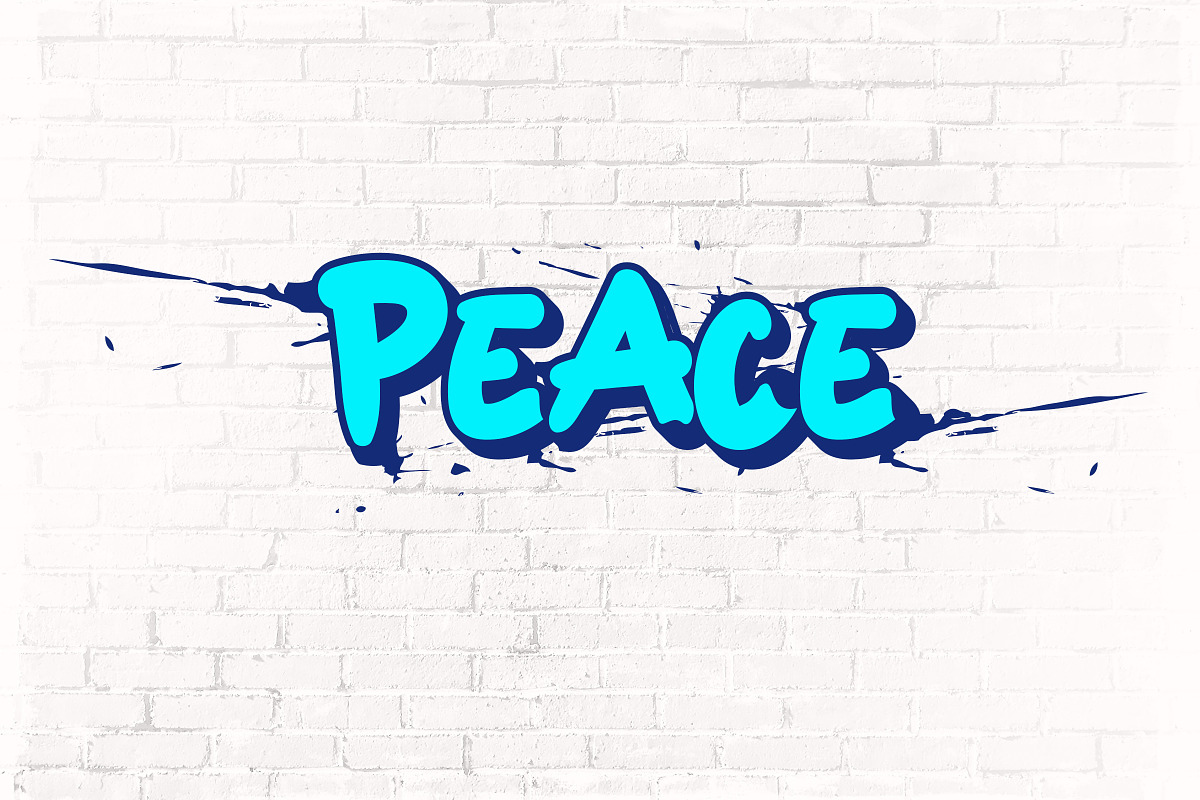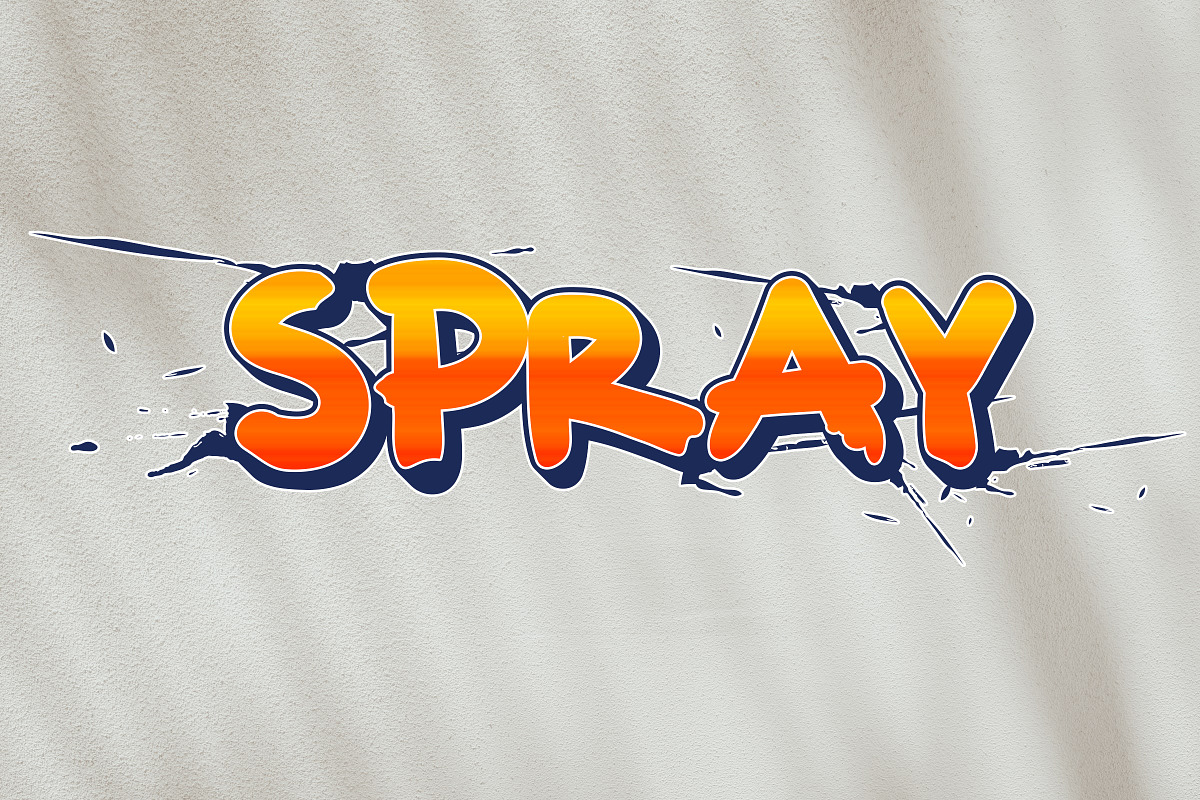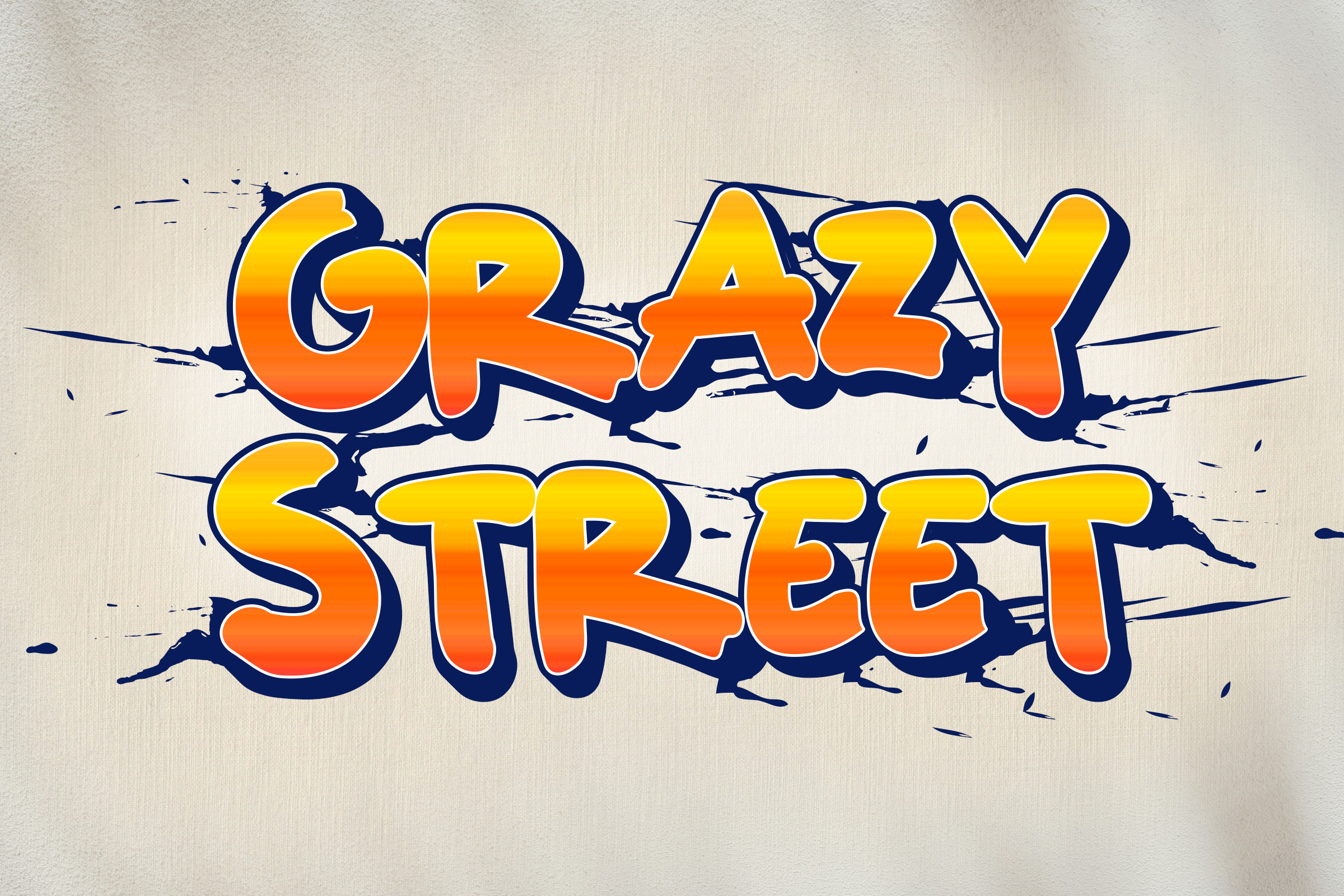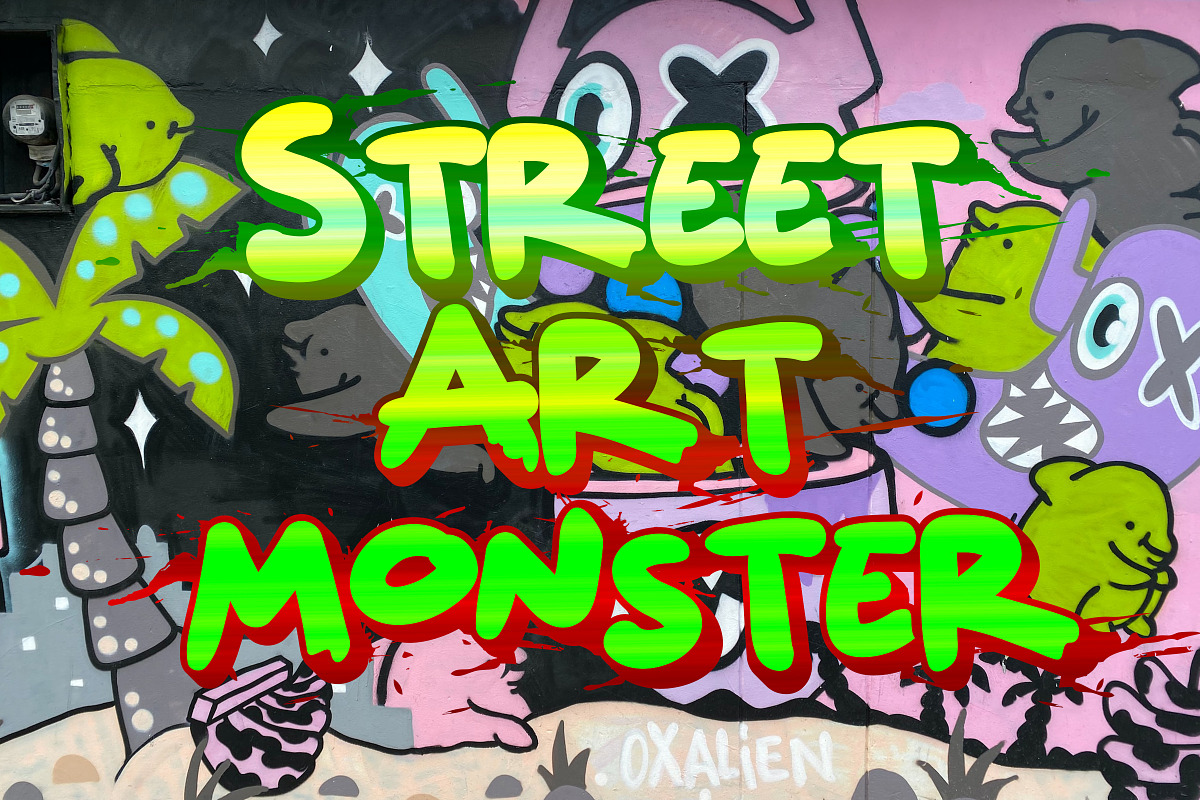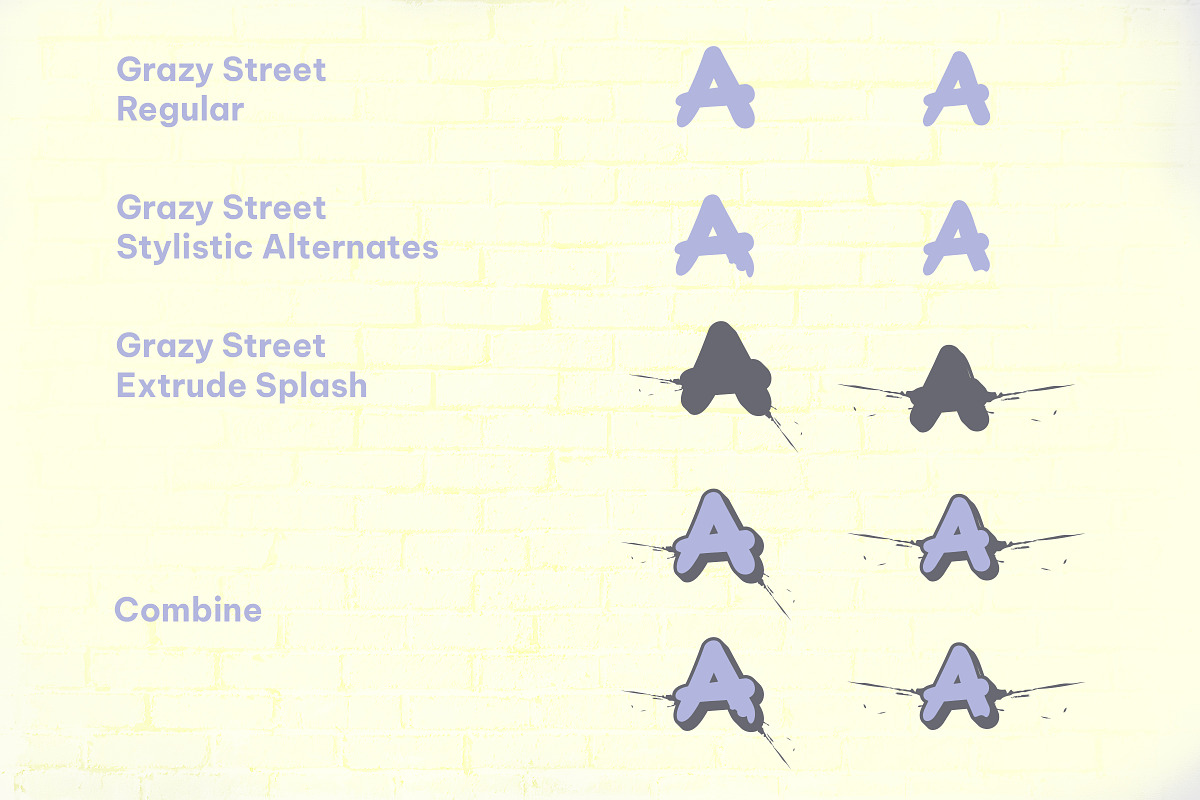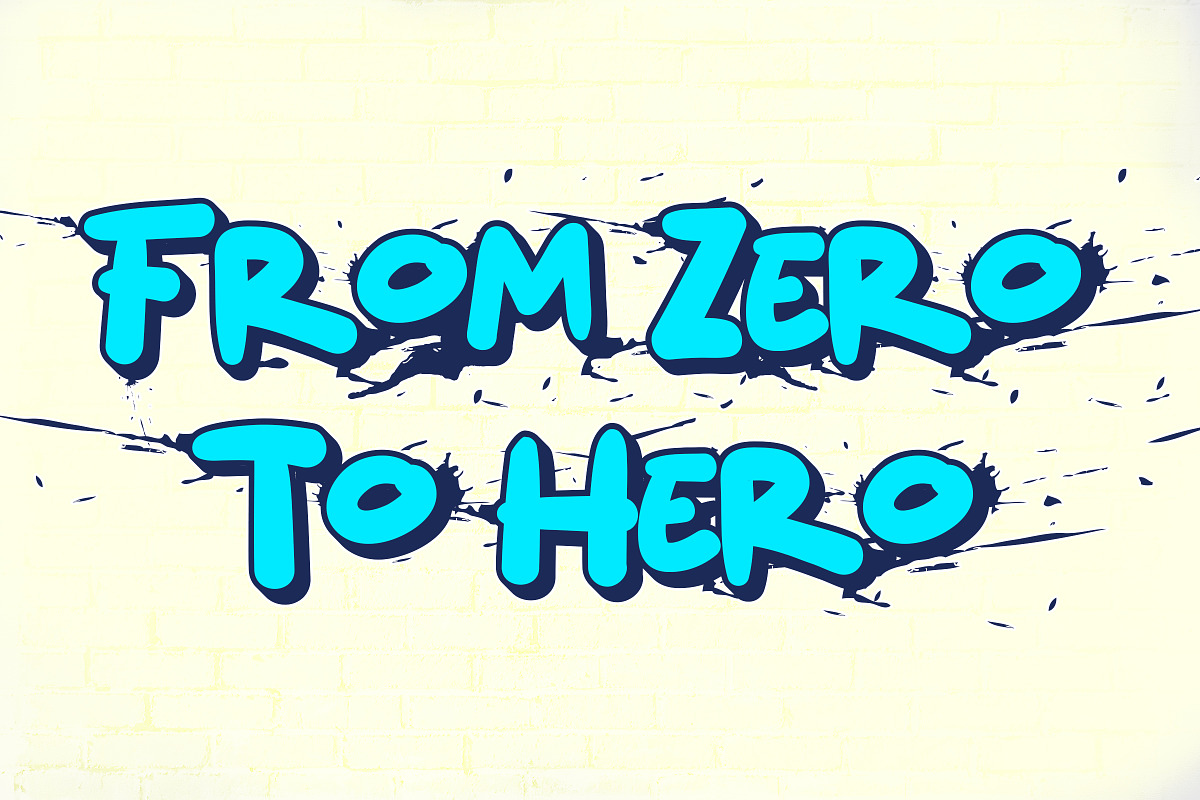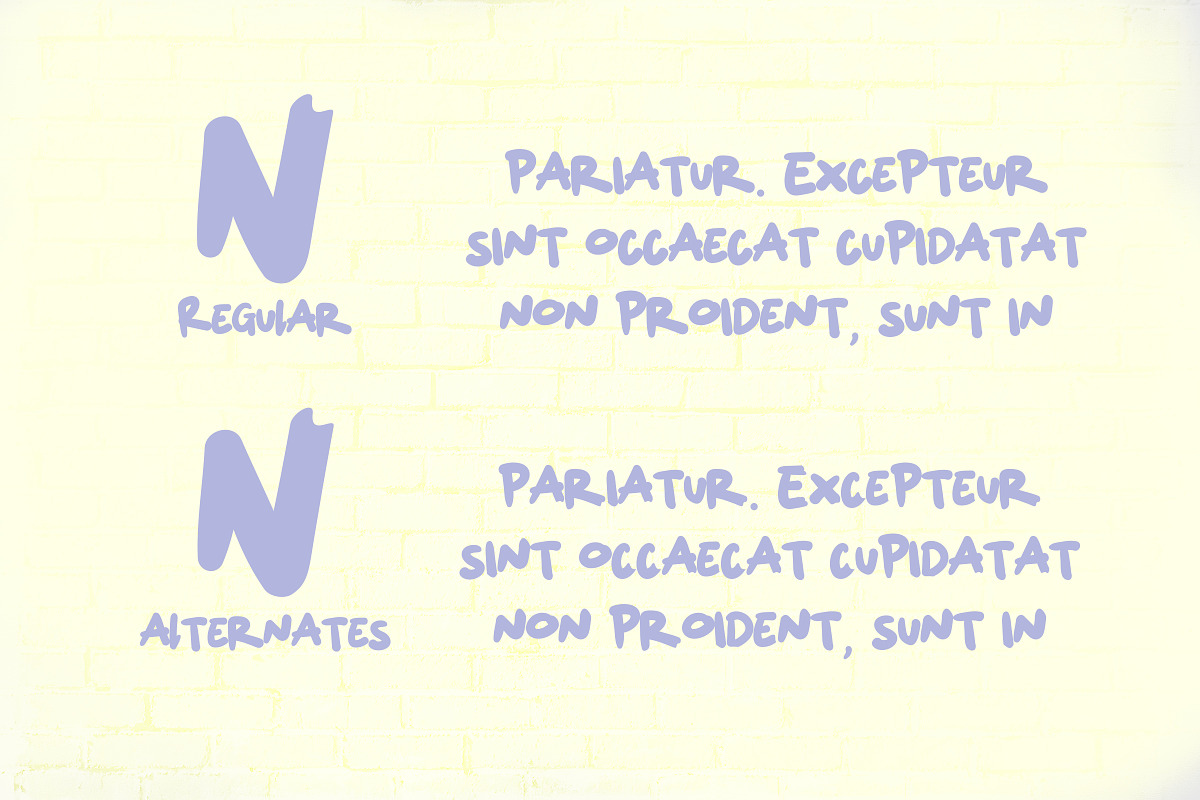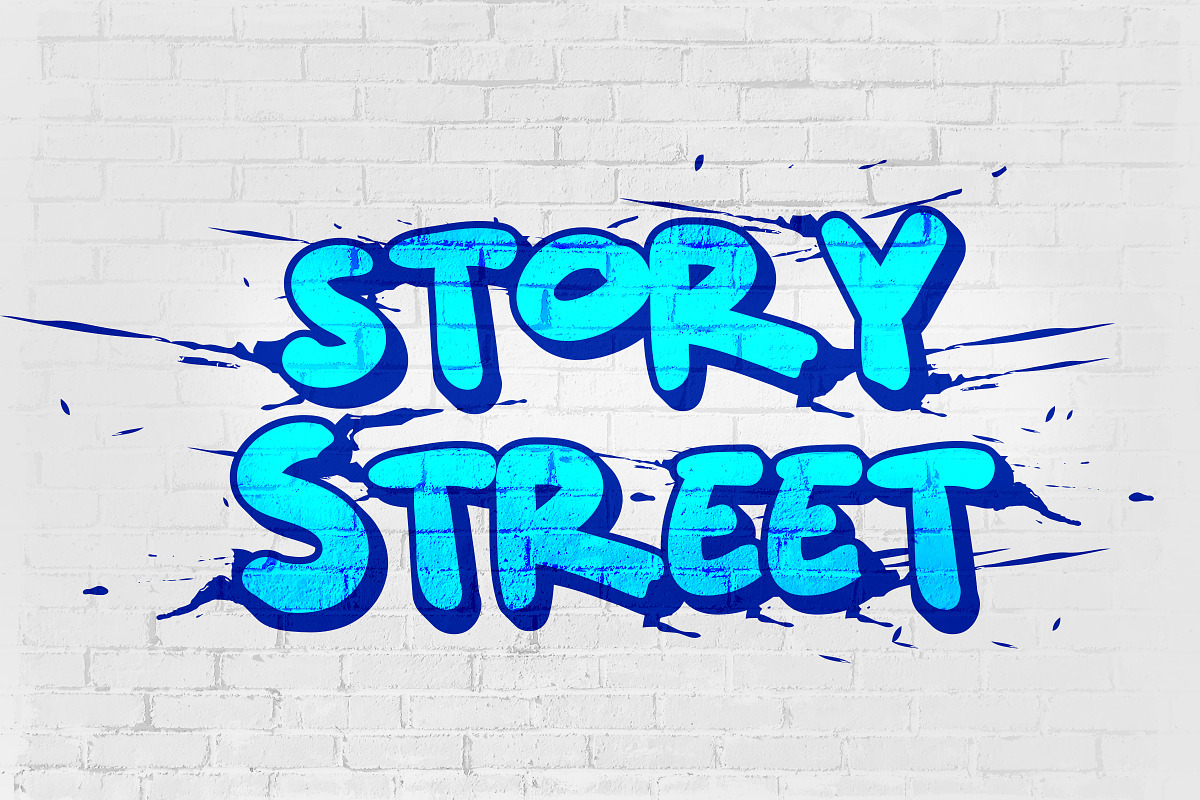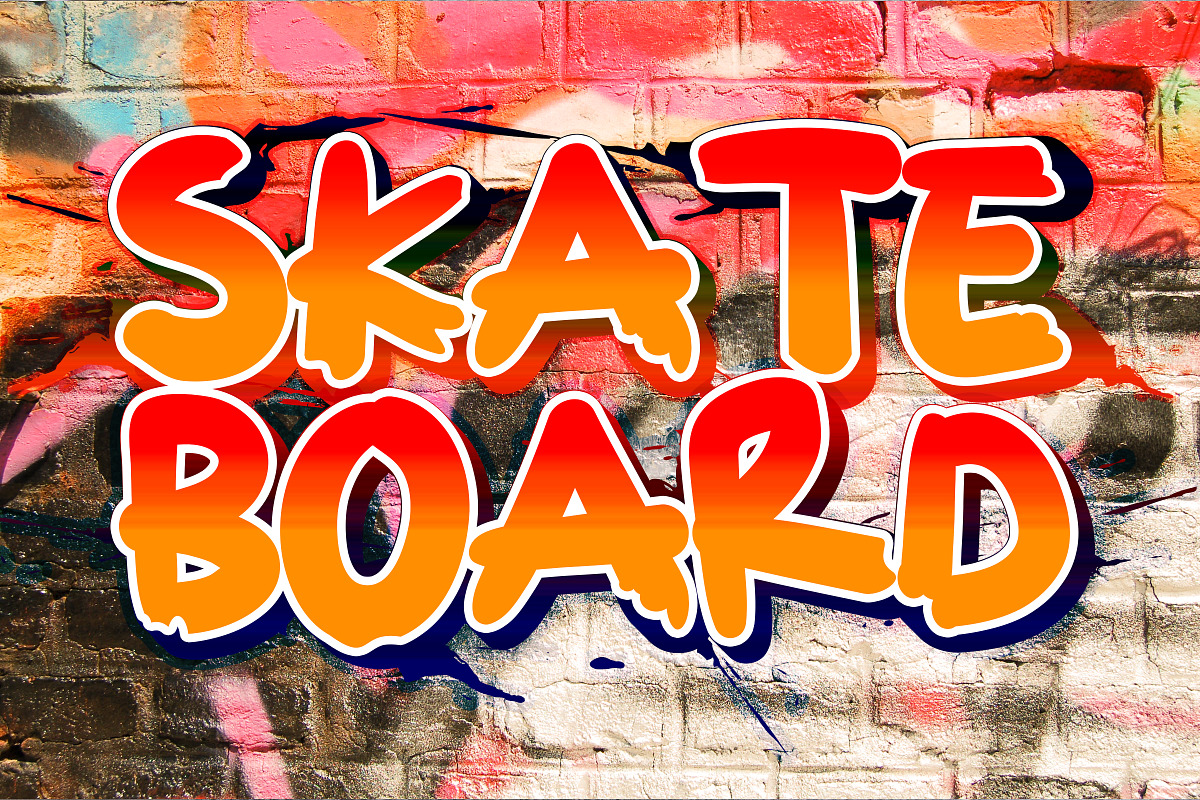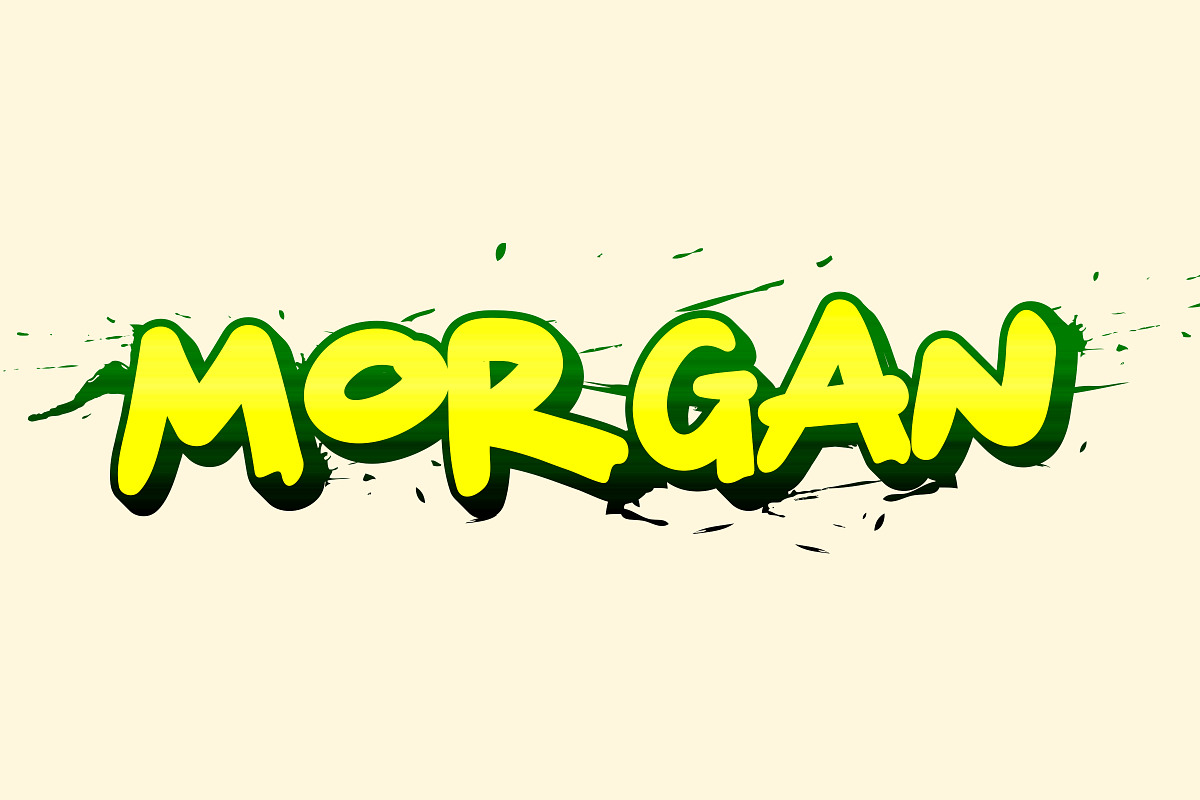
Grazy Street - Display Font
Grazy Street is an awesome display font that features the street art vibe. Take your designs to the next level with this stunning font. Font includes all lowercase and uppercase characters, numbers, punctuation, an array of standard ligatures and a selection of international characters as well . This font is PUA encoded which means you can access all of the glyphs and swashes with ease! (please type the preview to see if I have what you need!)